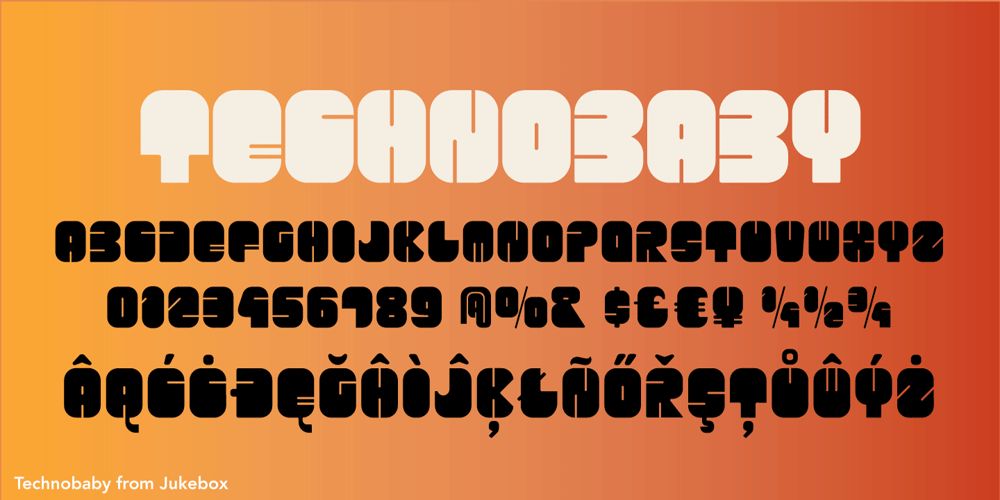
Technobaby JF
Technobaby JF font
Technobaby JF Font Family was designed by Jason Anthony Walcott and published by Jukebox Collection. Technobaby JF contains 1 styles and family package options. Technobaby is a funky futuristic font done with modular letterforms. This typeface arose from playing around with the basic rounded rectangle shape. Jason wanted to see how many different letters he could create by simply changing the locations of the slots cut into the rectangles. Overall it lends the font a very cohesive and unique look. Get your “mod” on with Technobaby!